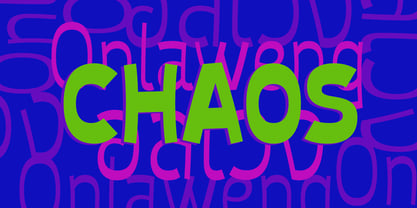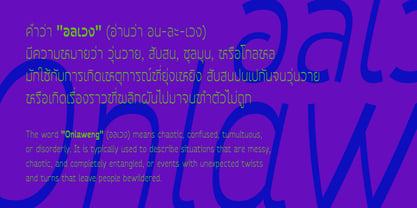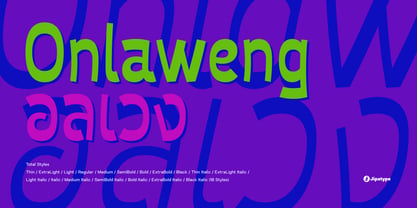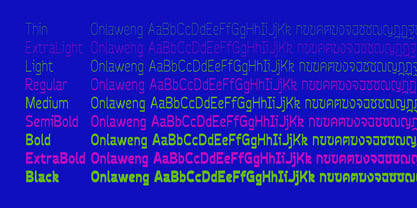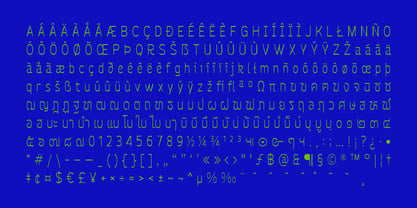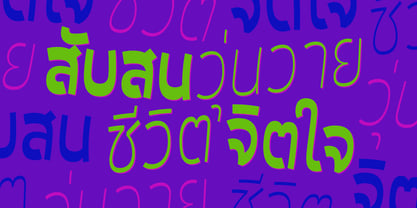
Onlaweng
by Jipatype
The Onlaweng Font Family was designed by Anupap Jaichumnan and published by Jipatype. Onlaweng contains 18 styles and family package options. More about this family
Onlaweng is a display font featuring a reverse-contrast design, where the traditional weight distribution of horizontal and vertical strokes is flipped. Its unique, slightly eccentric structure evokes the raw, expressive feel of a chisel-tip marker. Together, these elements create a delightfully unconventional and quirky aesthetic while maintaining excellent readability. With 18 versatile styles ranging from Thin to Black including matching italics. Onlaweng is the perfect choice for designs looking to break the mold and defy convention.
Designers: Anupap Jaichumnan
Foundry: Jipatype
Jipatype is a type foundry founded and operated solely by Anupap Jaichamnarn, based in Bangkok, Thailand. Officially established in 2022, the foundry's journey began in 2019. The name "Jipatype" is derived from the Thai word “Jipatha” (จิปาถะ), meaning "miscellaneous" or "variety." This name reflects the diverse design concepts and influences that shape Jipatype’s versatile font collections.